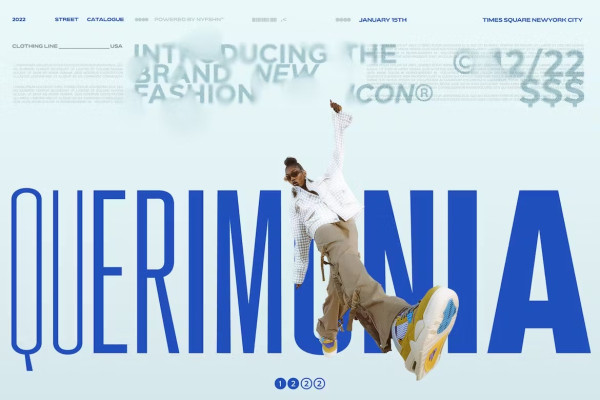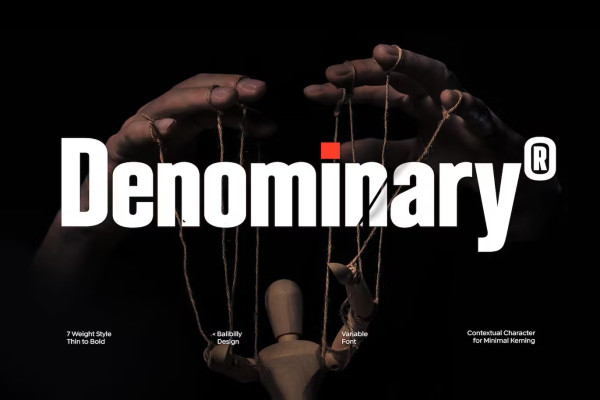
Denominary Font
Denominary Font is about precision, beauty and refinement. It’s crafted with care and attention to detail for professional creative people who value quality and distinction. The Denominary typeface has an advanced feature that sets it apart from others: auto-active contextual alternates.
Our font engineer writes this feature to minimize kerning between characters automatically, making it very convenient and easy to use, especially for web purposes where minimal kerning means a smaller font size. The feature adjusts the kerning based on the specific characters being used, ensuring optimal spacing between letters.